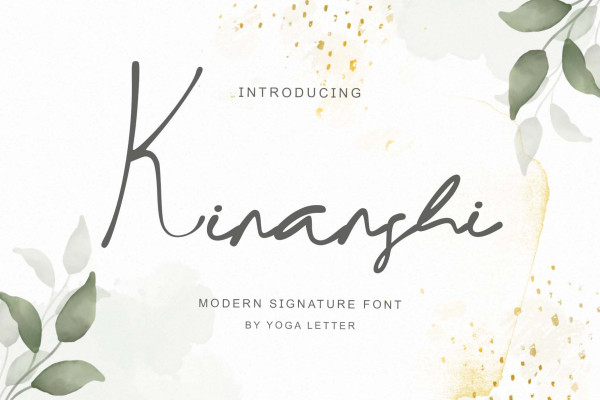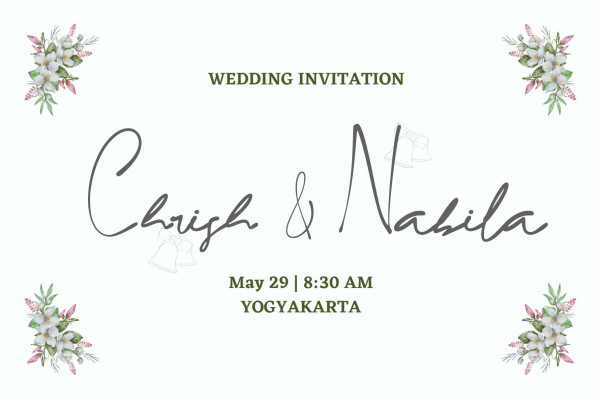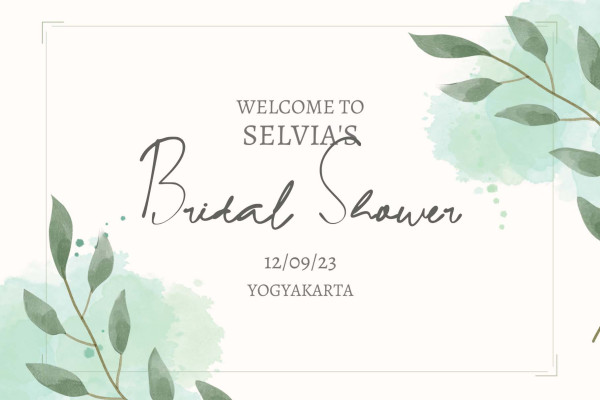
Kinanshi Font
Kinanshi Font is a modern and trendy signature script font that exudes sophistication and elegance. Its flowing lines and stylish letterforms make it the perfect choice for creating memorable logos, branding materials, and social media graphics. With its versatile nature, Kinanshi adds a touch of luxury and professionalism to any design, making it a must-have for discerning creatives.